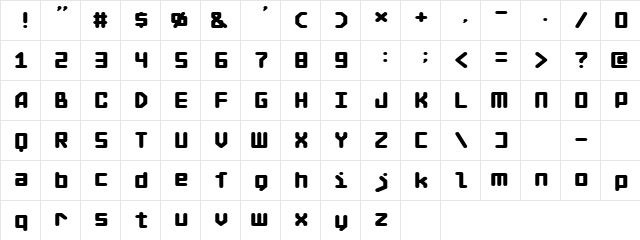
AddElectricCity Regular
Design Context for AddElectricCity Typeface
AddElectricCity has a distinctly futuristic character, with geometric precision and clean angles that feel at home in technology, gaming, and sci-fi contexts.